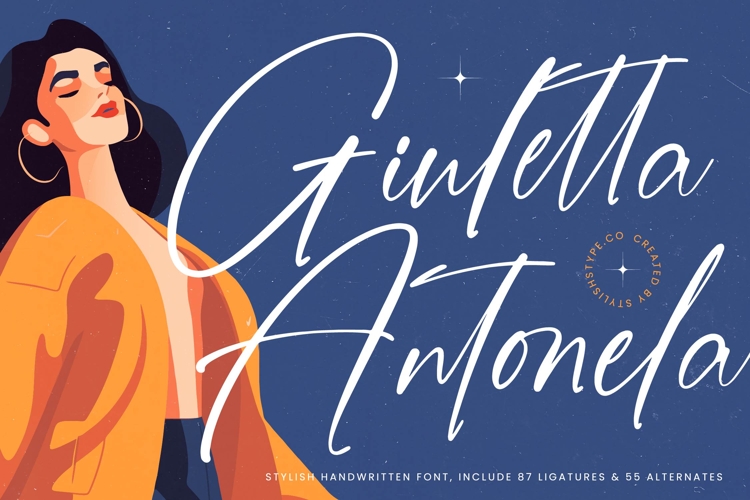
Giuletta Antonela - Stylish Handwritten Font
Giuletta Antonela is a stylish handwritten font that radiates modern sophistication, romantic elegance, and the authenticity of natural handwriting. Featuring 87 ligatures and 55 alternates, this typeface gives designers the creative flexibility to craft unique and expressive lettering compositions with ease. Each stroke is designed with organic rhythm and refined artistry, ensuring your typography conveys a sense of grace, charm, and timeless beauty.
The fluid strokes and delicate ligatures of Giuletta Antonela adapt seamlessly across digital media and print applications, making it a versatile choice for countless projects. Perfect for wedding invitations, luxury branding, editorial layouts, romantic stationery, social media promotions, and premium packaging, this handwritten script ensures your designs look polished, professional, and unforgettable.